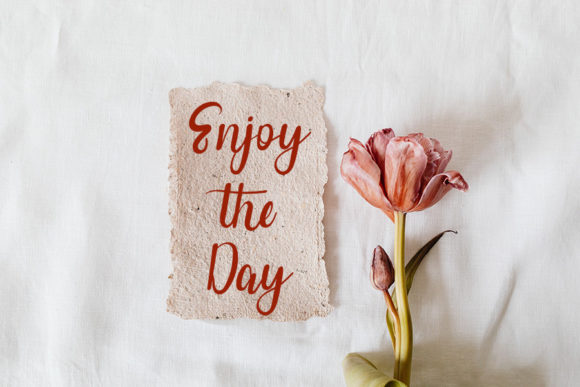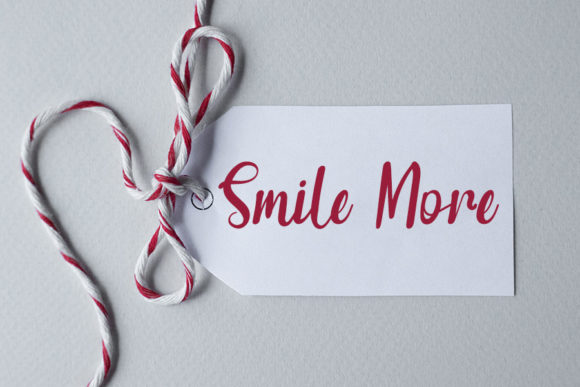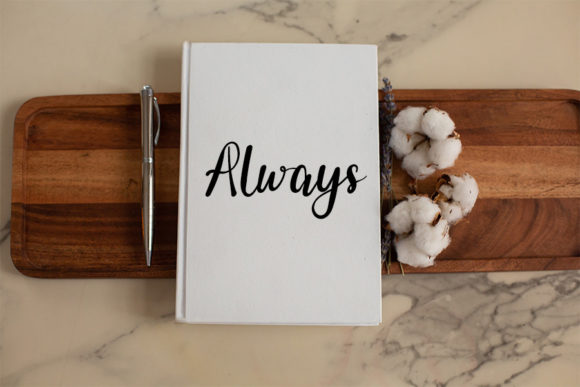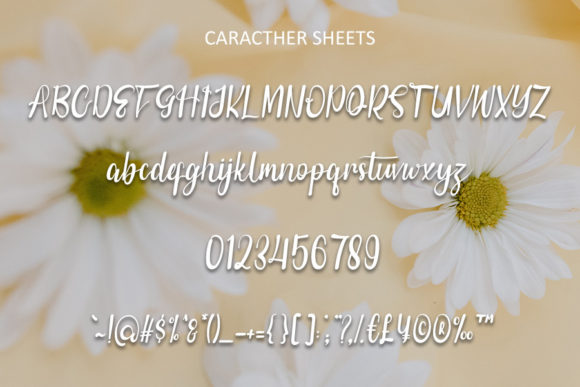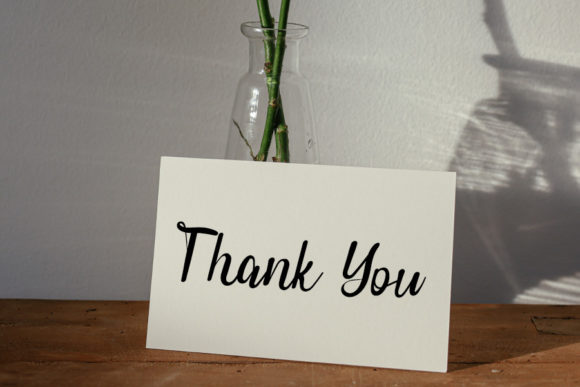
Introduction to Daisy Plants Font
Do you ever find yourself stuck in a creative rut, desperately searching for the perfect design element to bring your project to life? I know I do. That’s why I’m always on the lookout for unique and high-quality design resources that can take my creative projects to the next level. Recently, I stumbled upon the stunning Daisy Plants Font, and I couldn’t wait to share it with you.
As a designer, you understand the importance of having a versatile and stylish font in your arsenal. The Daisy Plants Font is just that – a bold, handwritten font that exudes a contemporary atmosphere and impeccable form, reminiscent of timeless classic calligraphy. Its versatility makes it an ideal choice for a wide range of contexts, from digital designs to print materials.
Daisy Plants Font
- Unique, hand-drawn design ideal for creative projects requiring a touch of whimsy and elegance.
- Perfect for use in various design contexts, including logos, branding materials, and digital art projects.
- Easy to customize and edit, making it an excellent choice for designers seeking a versatile and adaptable font.
Honest Review: Daisy Plants Font
I recently stumbled upon the Daisy Plants Font and was excited to give it a try. As a designer, I’m always on the lookout for unique and high-quality fonts that can elevate my creative projects. The Daisy Plants Font did not disappoint.
- ✨ The font has a beautiful, whimsical feel that’s perfect for projects that need a touch of elegance.
- ⚠️ The font is only available in a few styles, which may limit its versatility for more complex projects.
- ⚠️ The font is not suitable for large-scale text, as it may become difficult to read.
Overall, I’m impressed with the Daisy Plants Font. It’s a great addition to any designer’s arsenal, and I appreciate its unique aesthetic. While it may have some limitations, I believe it’s a valuable resource that can help take my creative projects to the next level.
To get the most out of the Daisy Plants Font, experiment with different font sizes, colors, and combinations with other design elements. This font is perfect for creating visually appealing headings, titles, and body text.
The Daisy Plants Font is ideal for various creative projects, including:
- Blogs and websites
- Infographics and presentations
- Wedding invitations and event materials